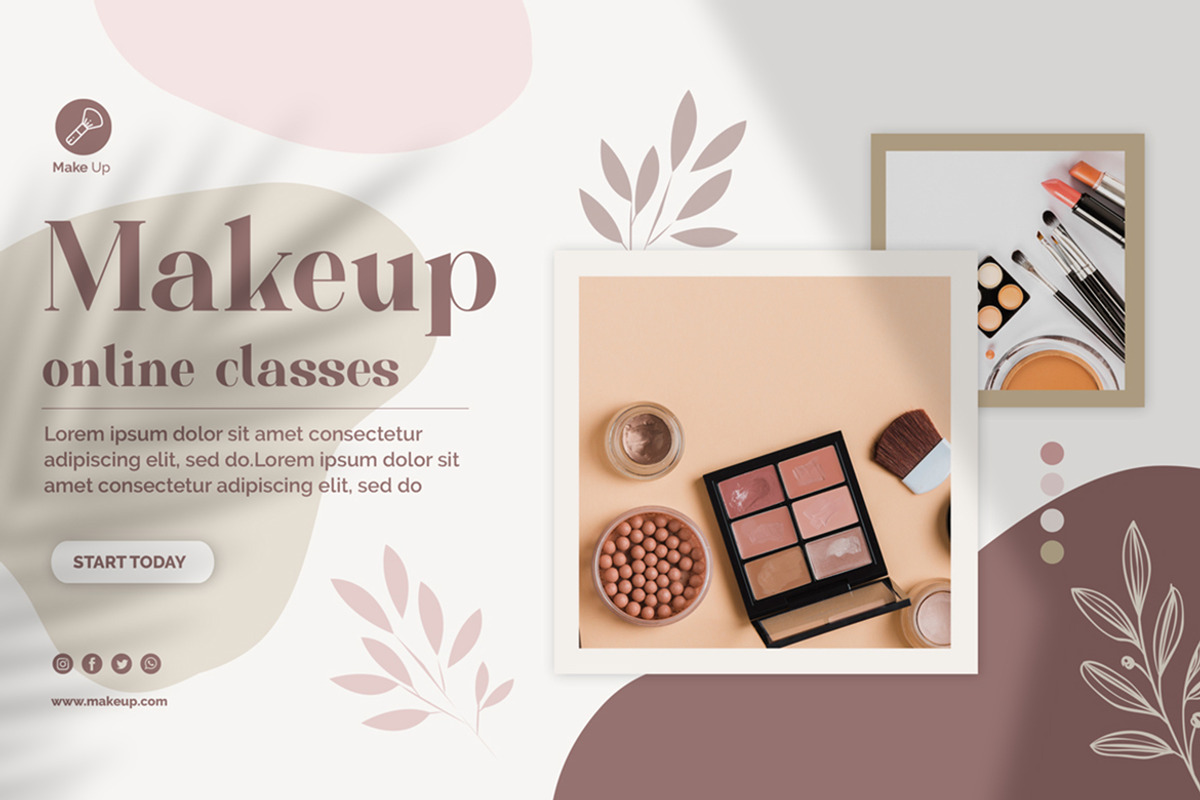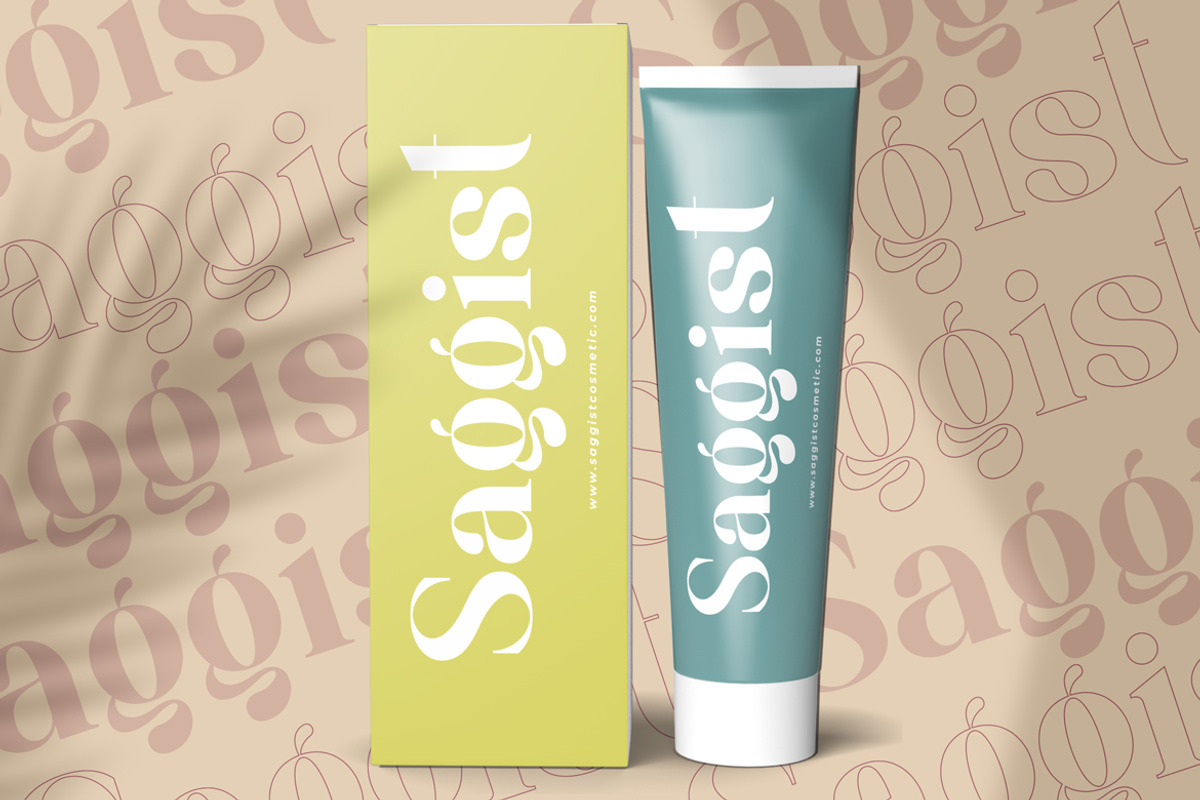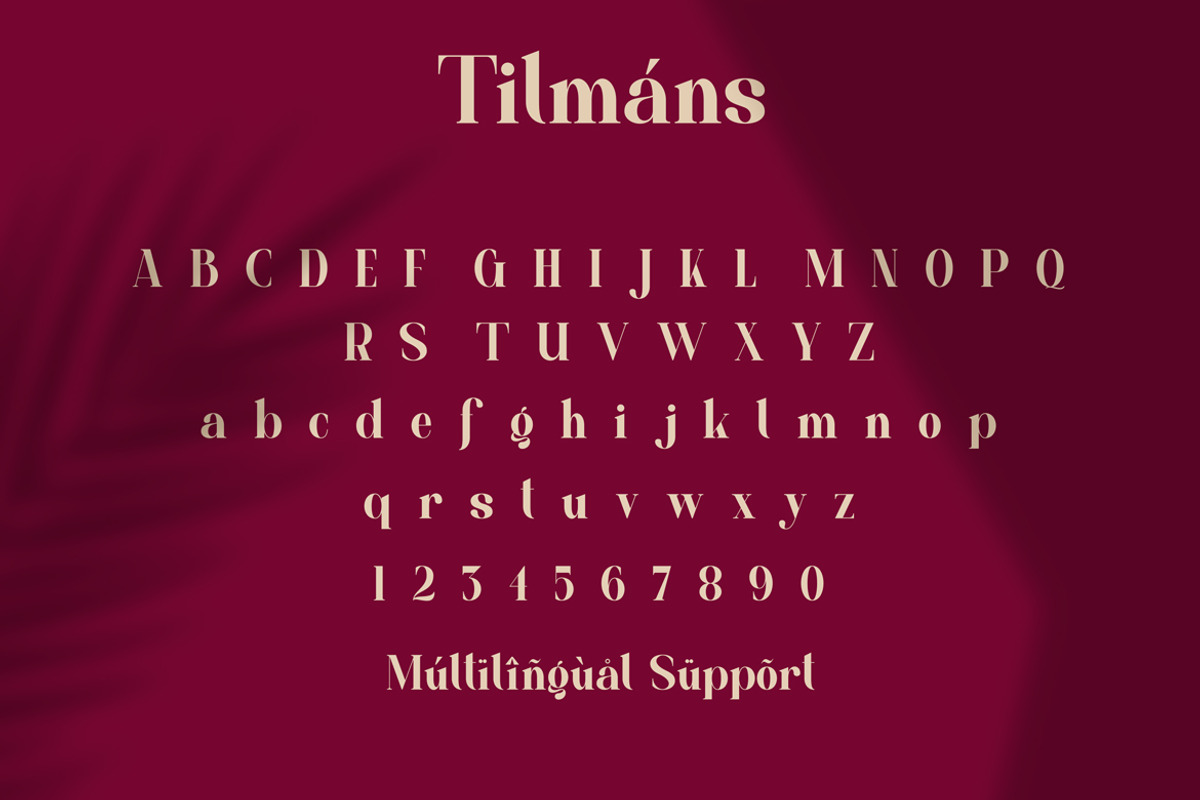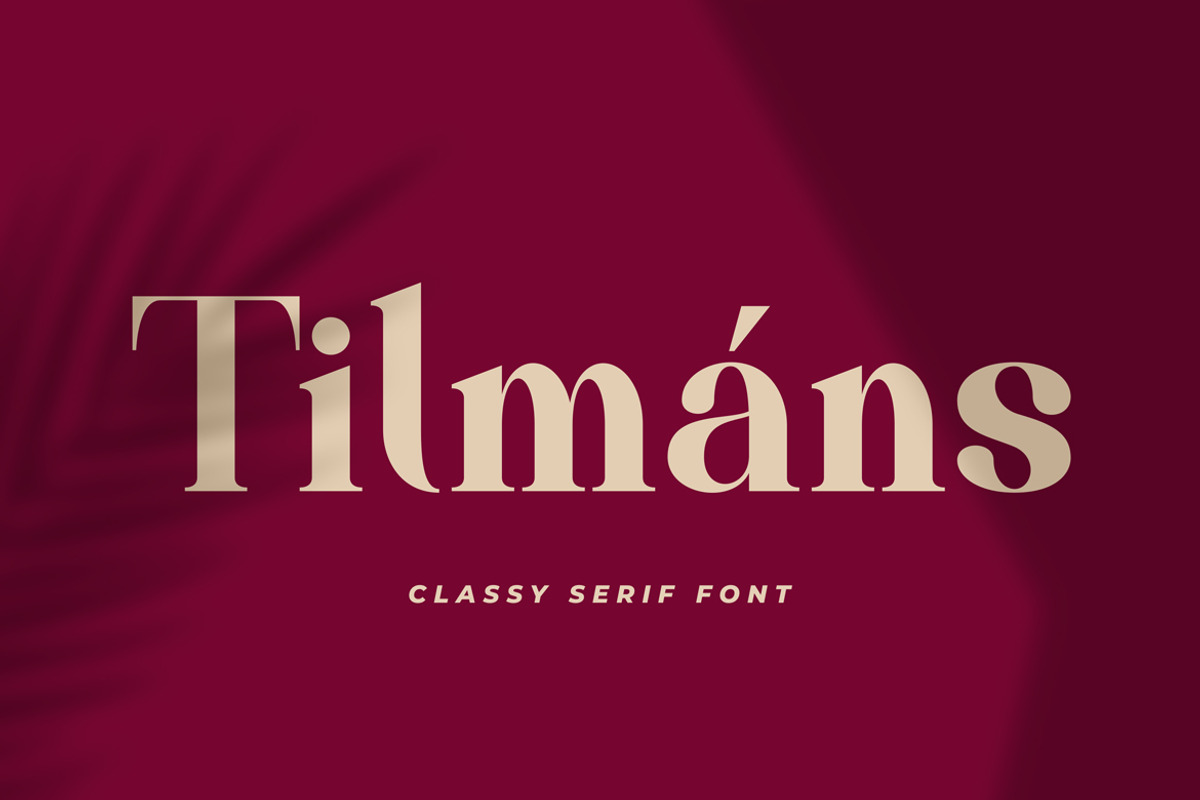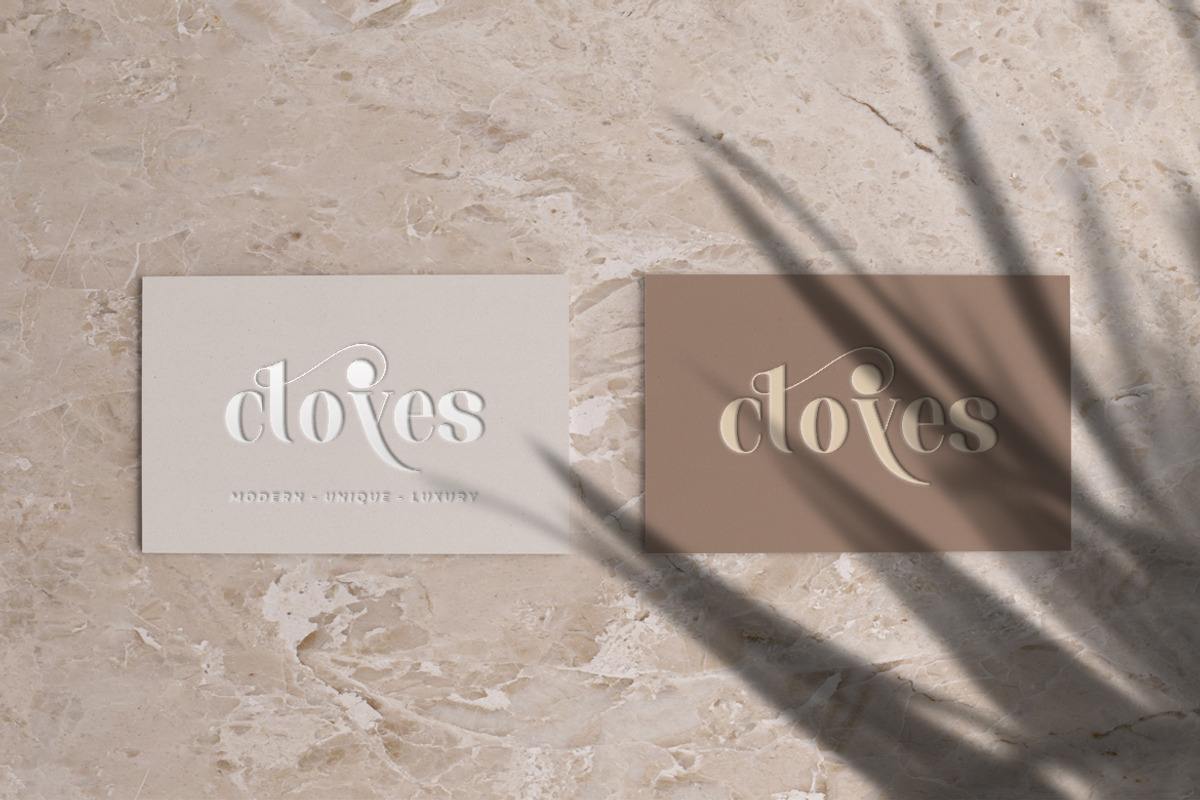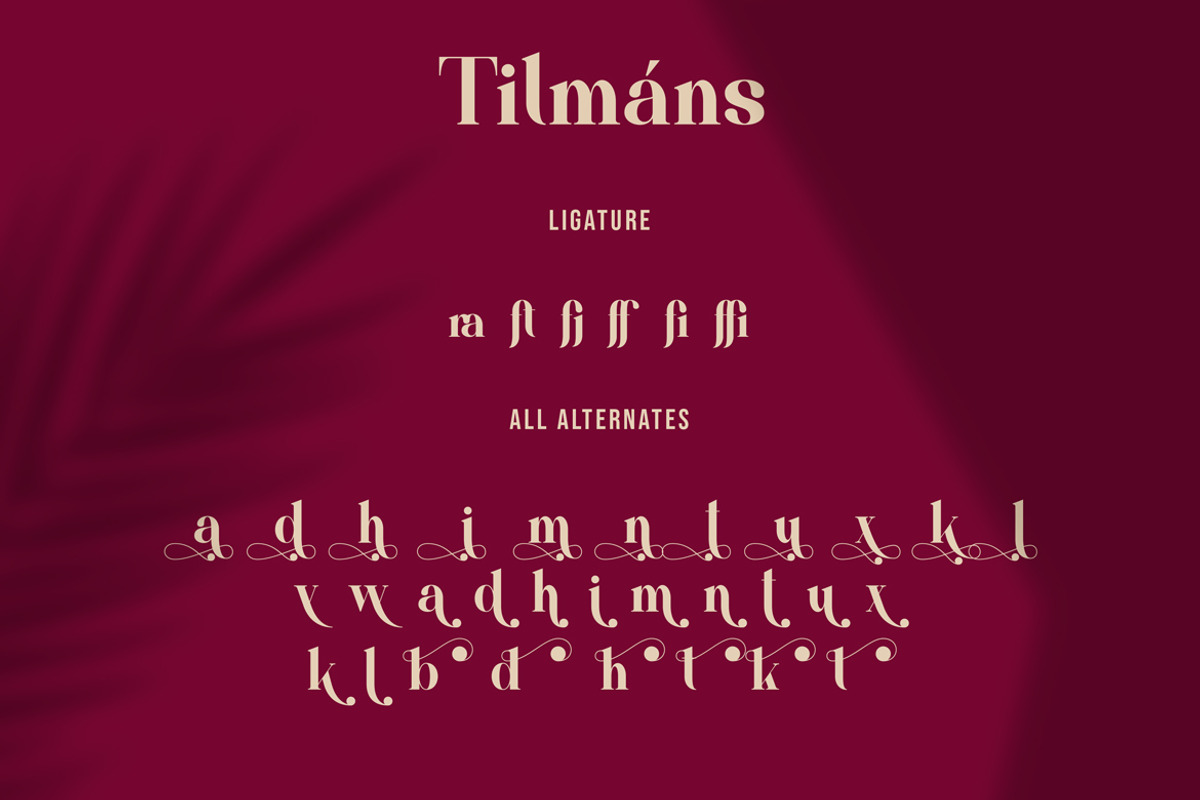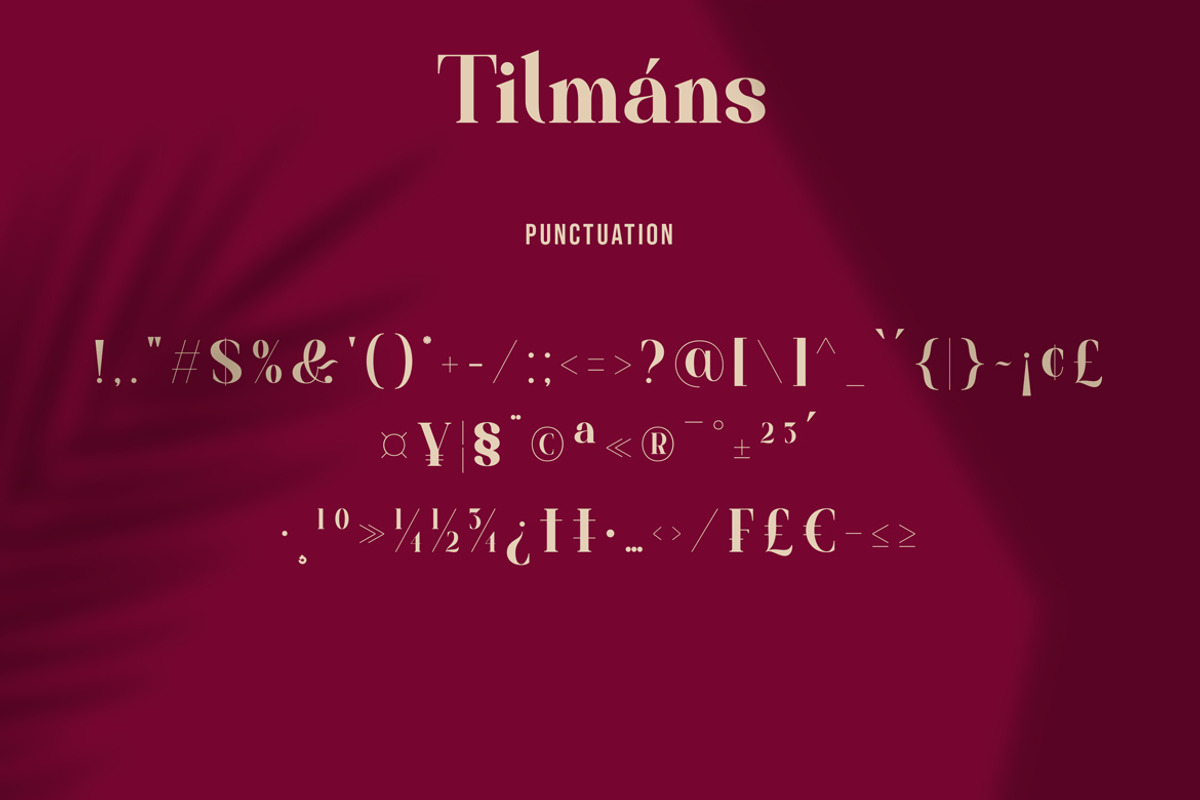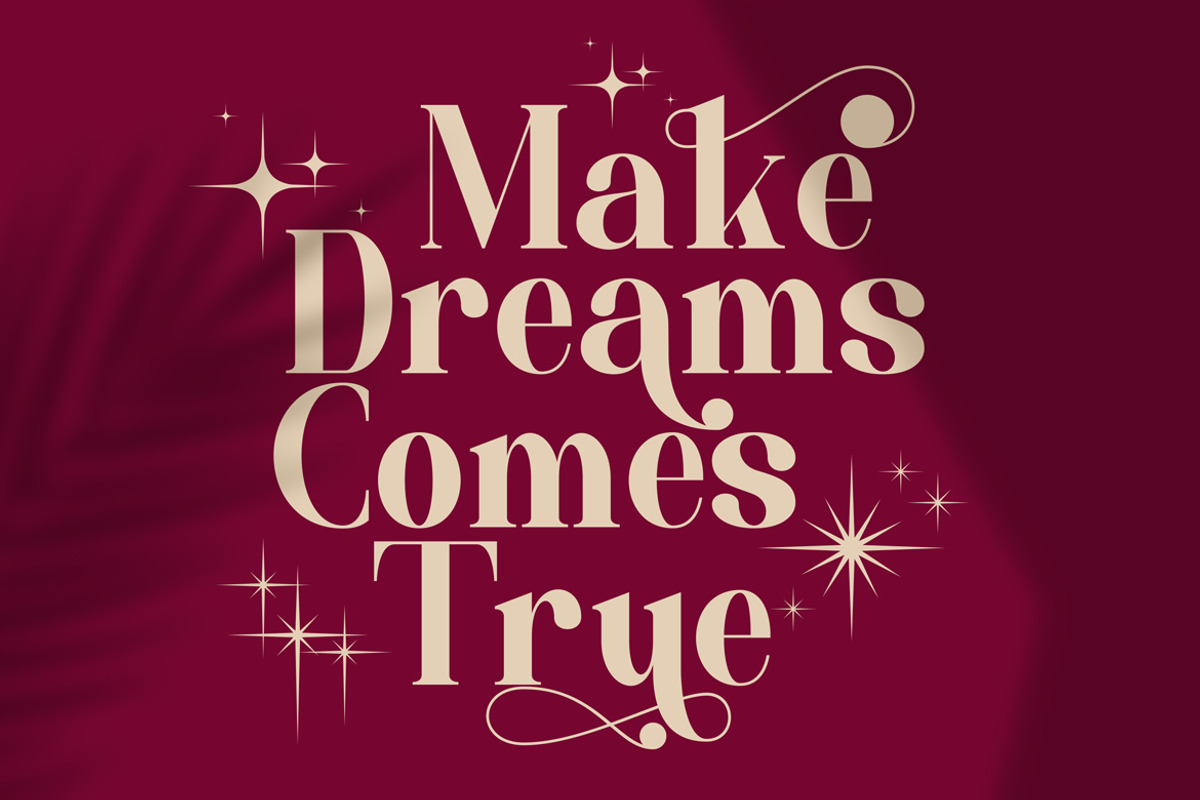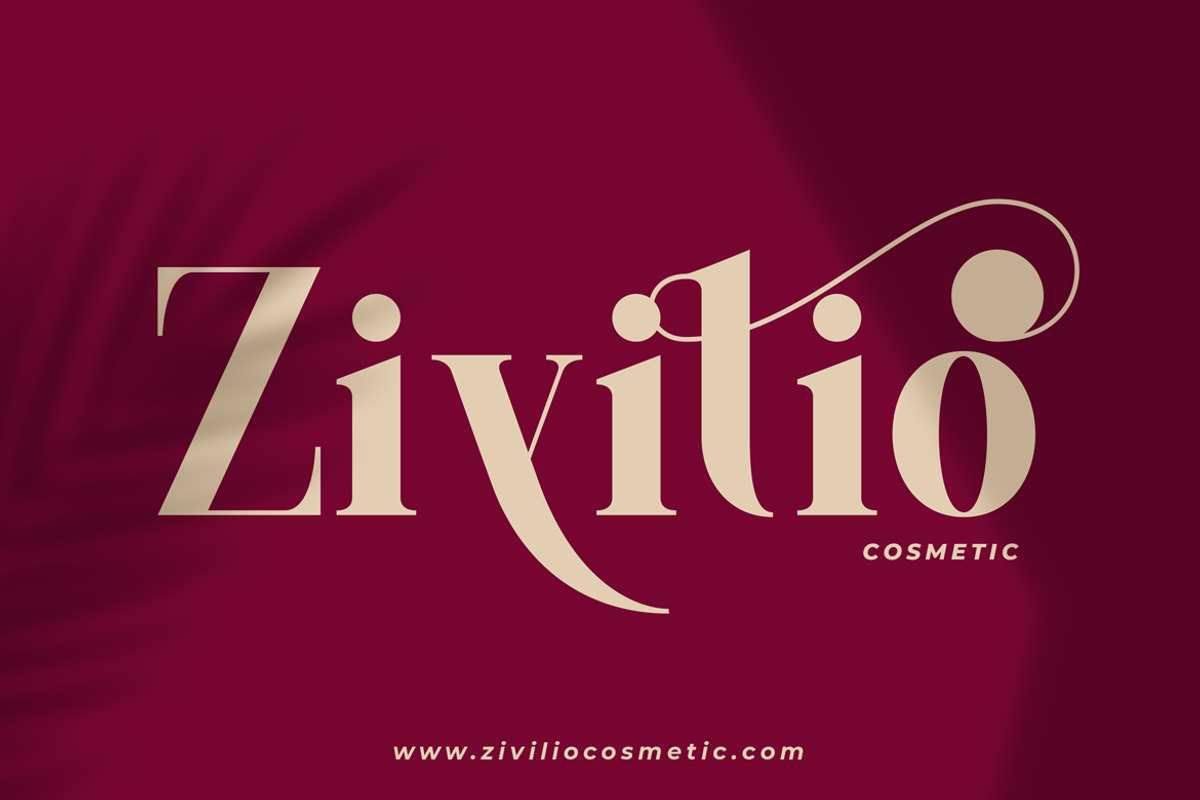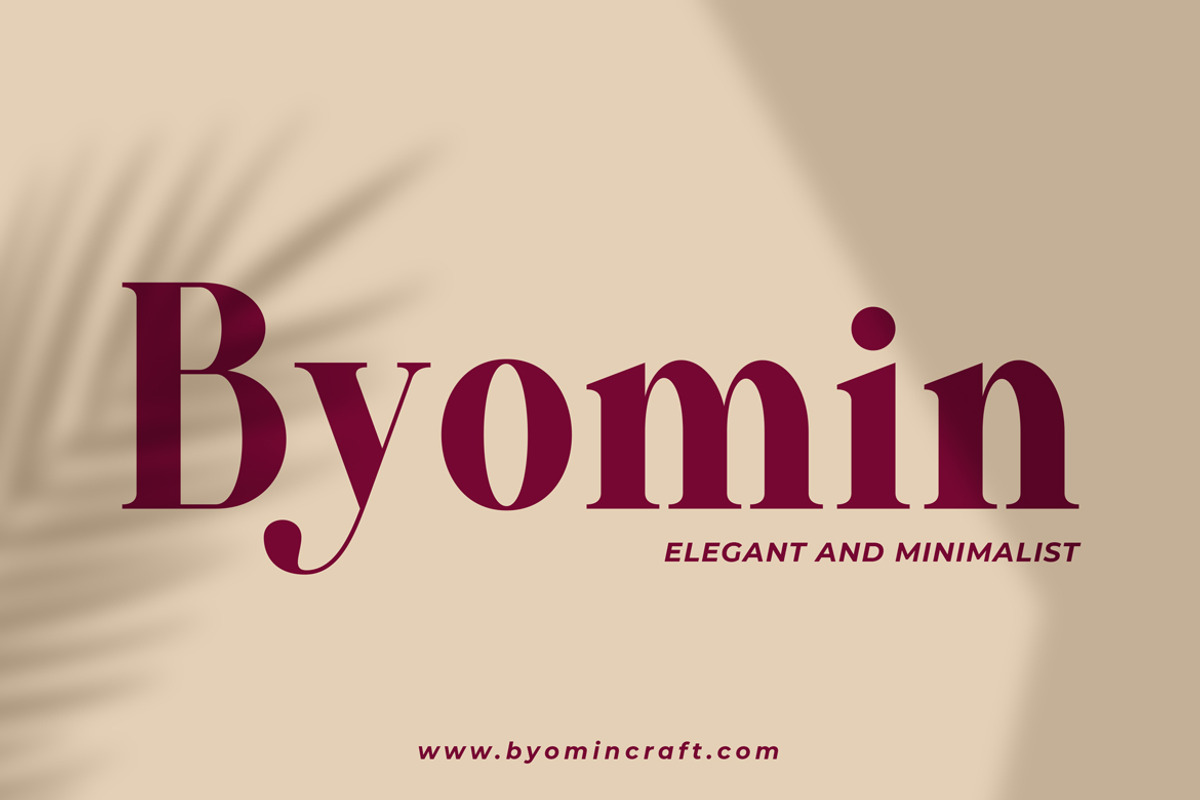
Tilmáns - A Classy Serif Font
Tilmáns is a modern and bold serif with a bunch of ligatures and alternates that will make your presentation or logo even more stunning and stand out! Tilmáns also support Multi Language. and already PUA Encoded!